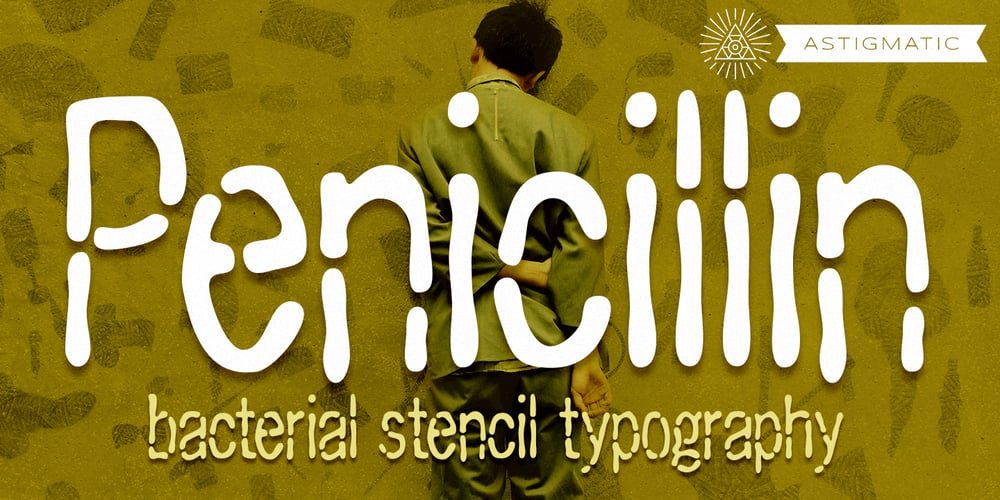
Penicillin AOE Font Family was designed by Brian J. Bonislawsky and published by Astigmatic. Penicillin AOE contains 1 styles and family package options. Penicillin is a psuedo thematic/destructive typestyle, looking more like a grunge/deteriorated or stencil typestyle, but actually a typestyle made to look as if formed of bacteria cells. From the fungus that breeds the bacteria that heals, comes a highly readable typestyle to add a little offbeat degeneration look to any design. The end result, a little funky fungus of a font, easy to read and fun to look at…let Penicillin cure your design ailments!